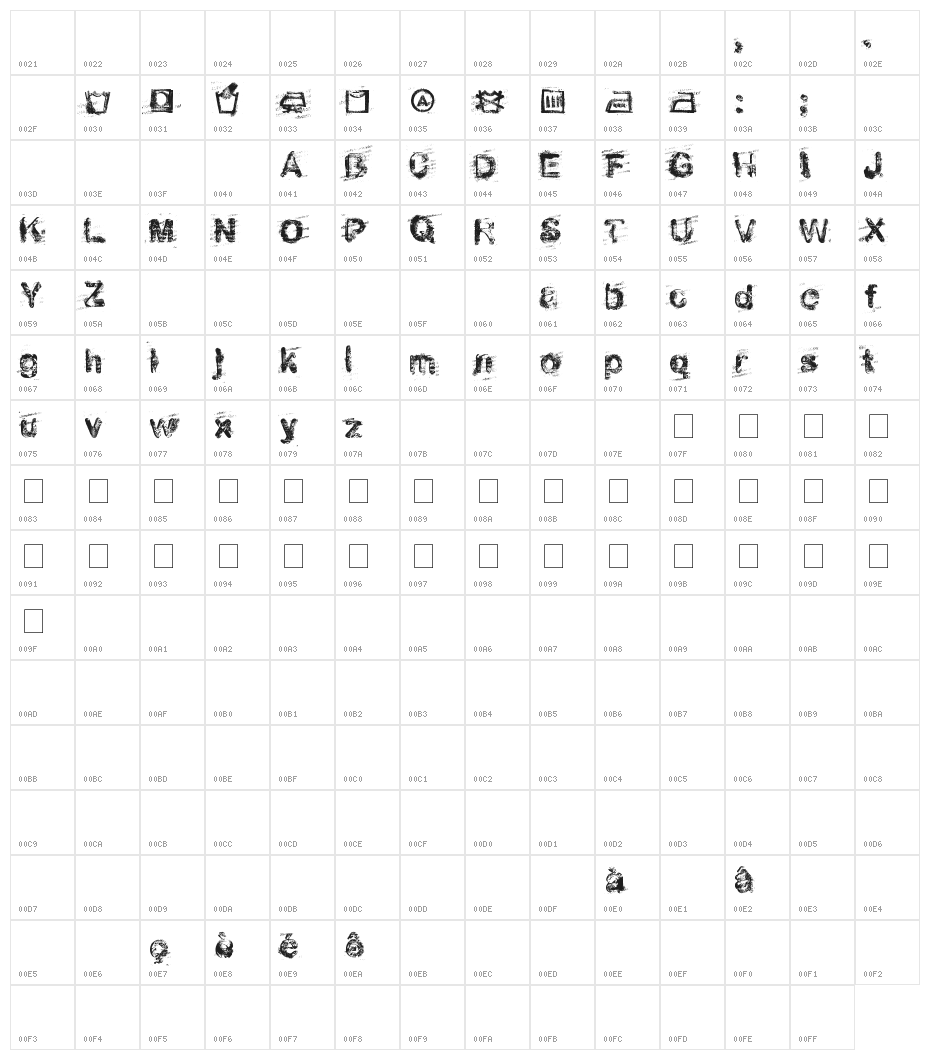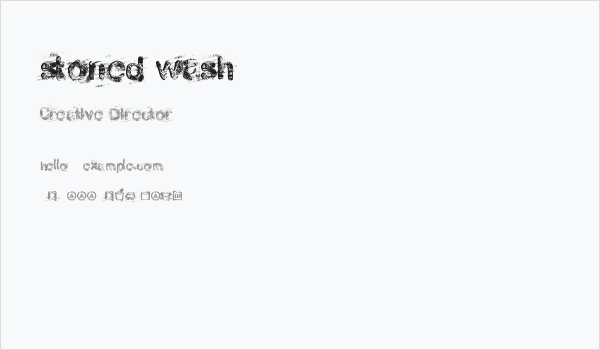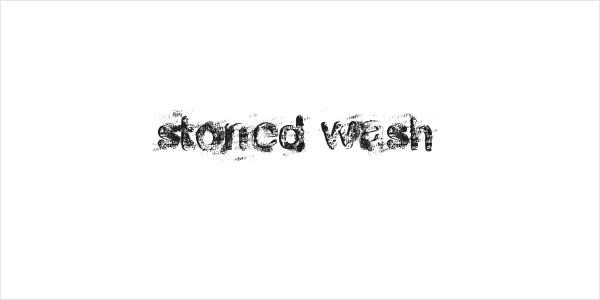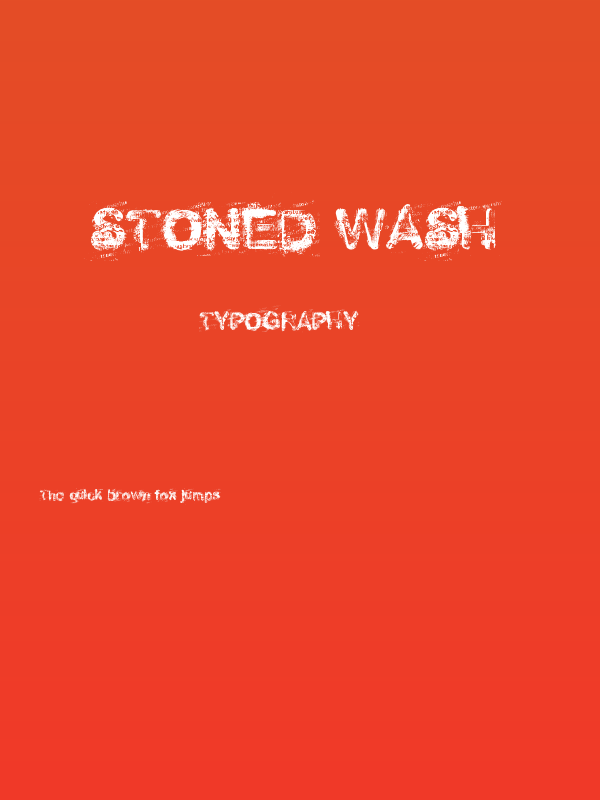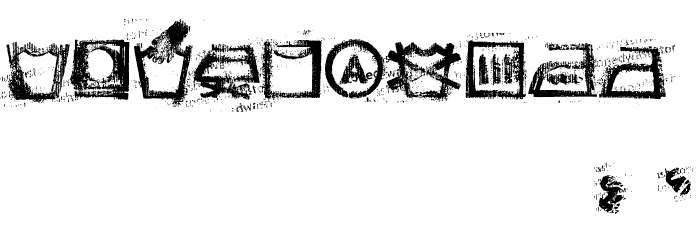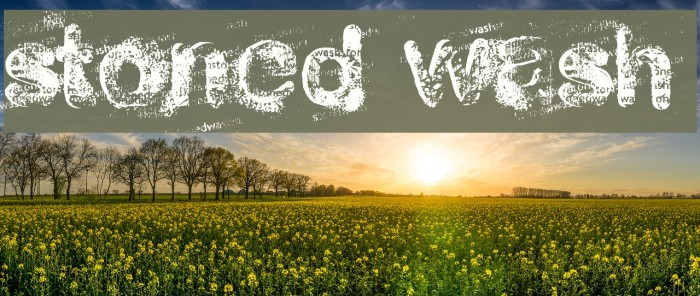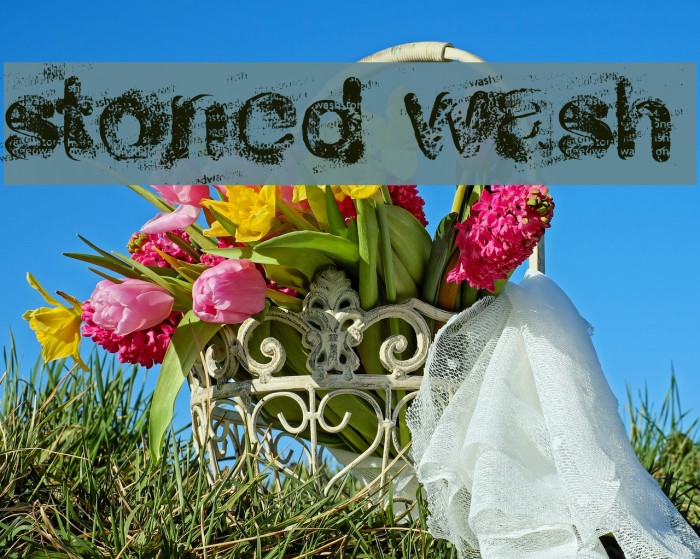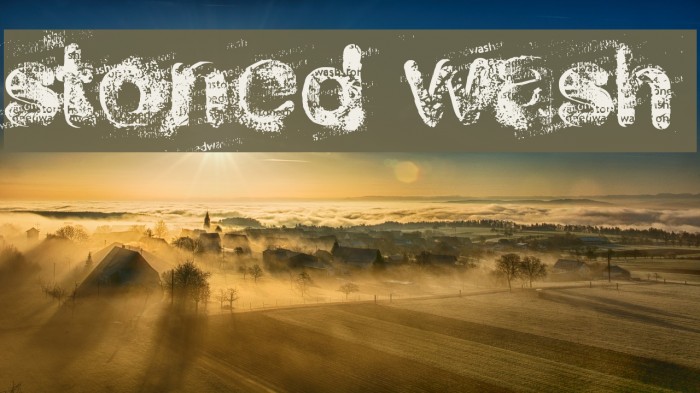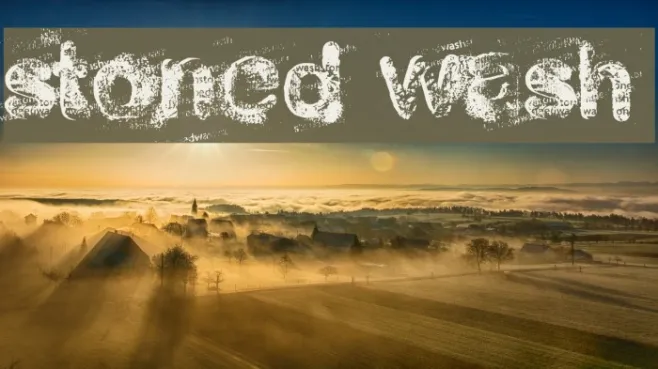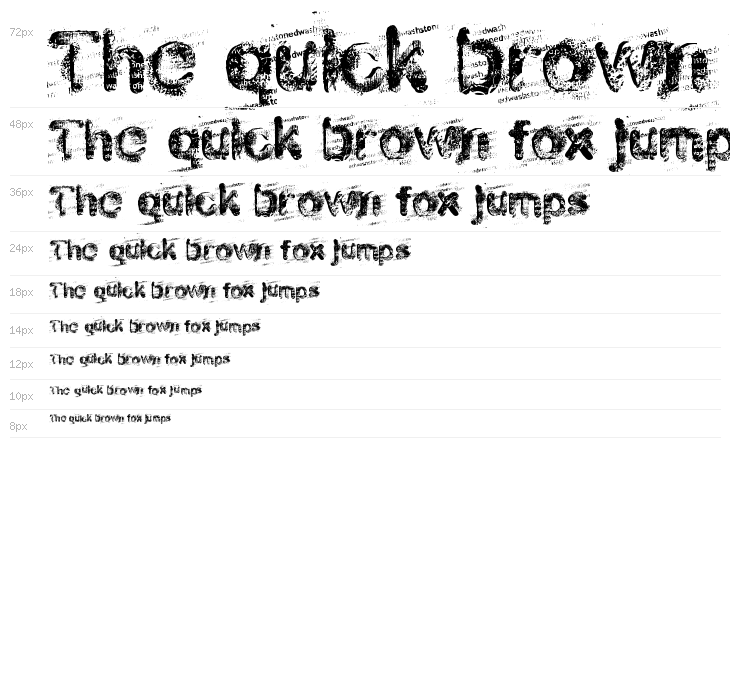
stoned wash Font
stoned wash Description
This font features a distressed, grunge style that mimics the appearance of weathered or eroded text. The characters have a rough, textured look with uneven edges, giving them a unique, worn-out aesthetic. This style is reminiscent of vintage or industrial design, making it suitable for projects that require a rugged, edgy feel. The uppercase and lowercase letters maintain a consistent design, while the numbers and special characters follow the same distressed theme. The overall appearance is bold and eye-catching, perfect for making a statement.
STONED-WASH UPPERCASE
STONED-WASH LOWERCASE
STONED-WASH OTHER CHARS
| Overall Style | Vintage, Grunge |
| Proposed Projects | Ideal for album covers, posters, branding for edgy or alternative products, and any design needing a vintage or industrial touch. |